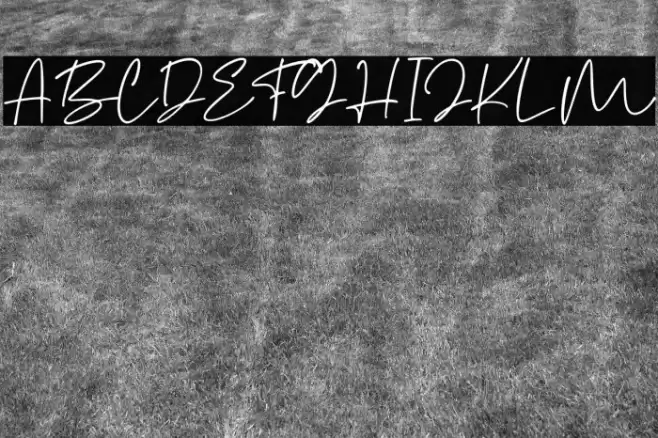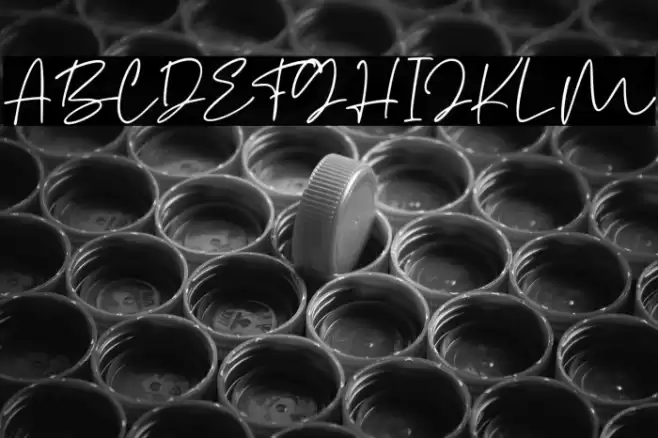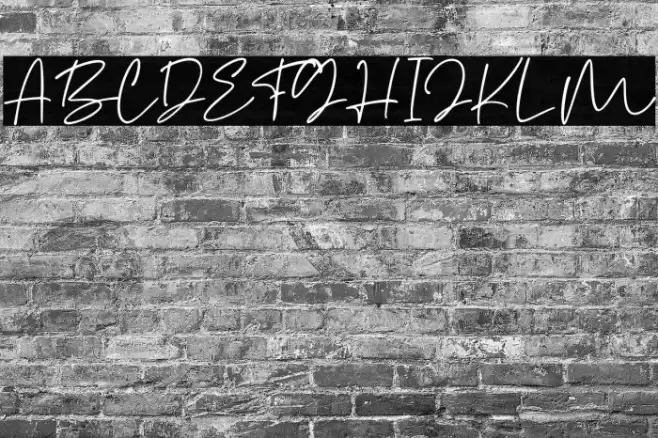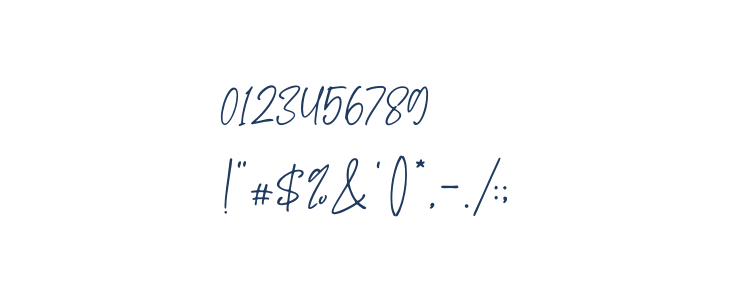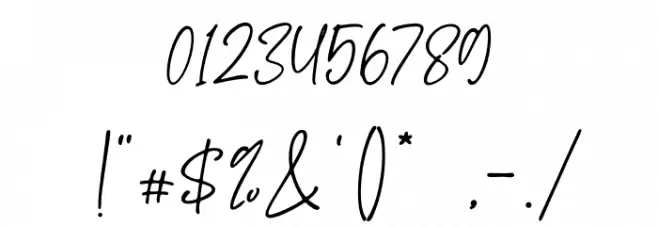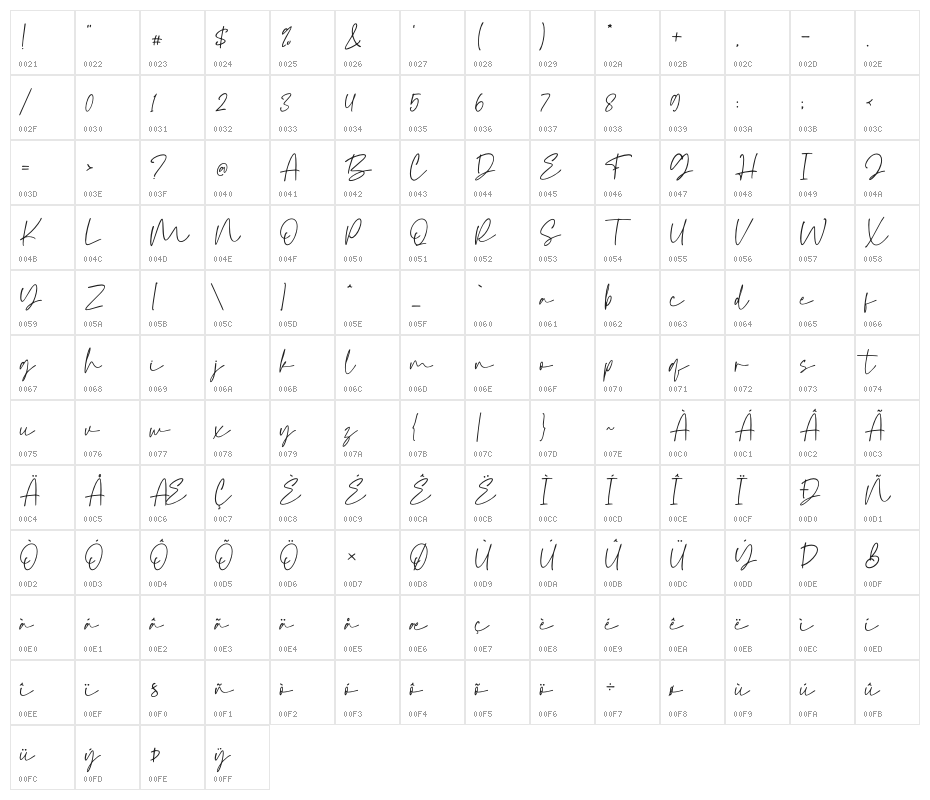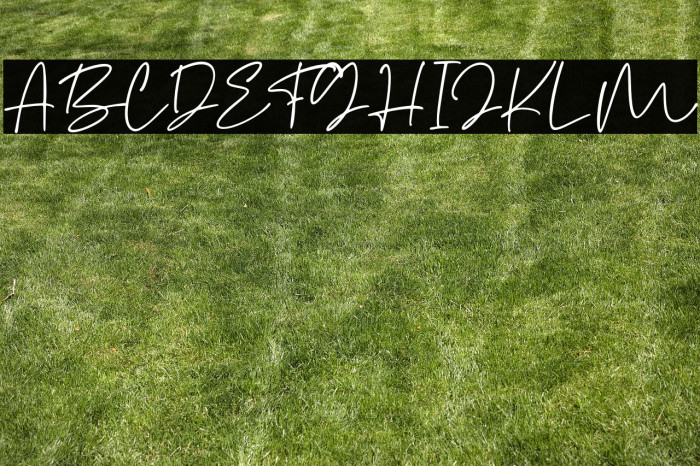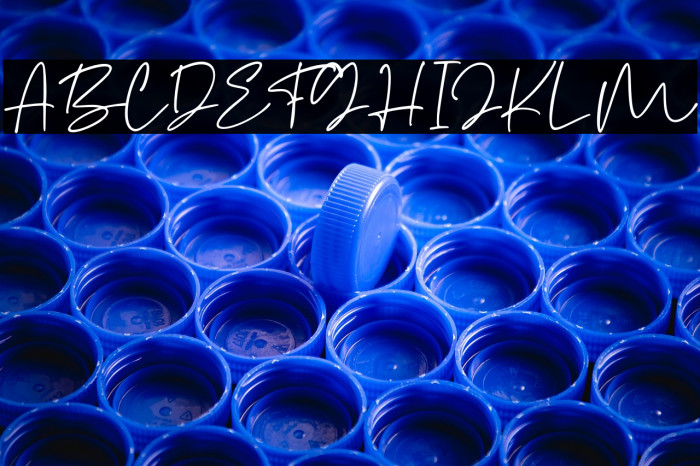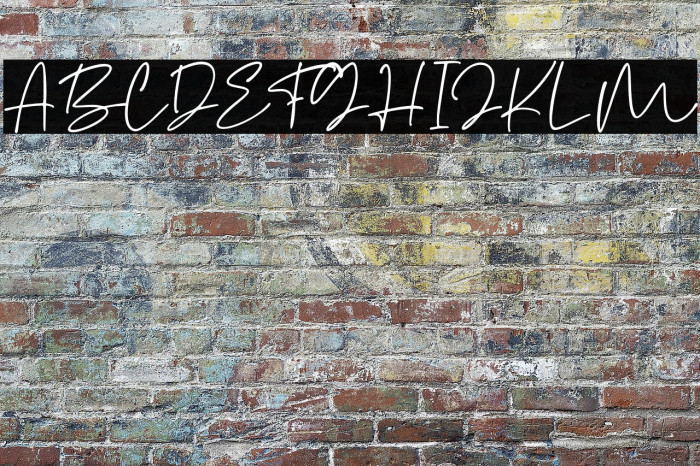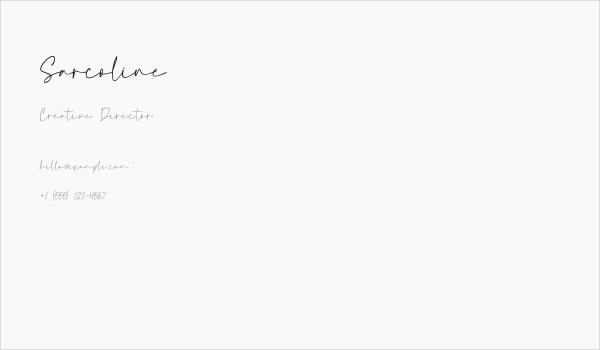
Sarcoline Font
Sarcoline Description
This font features a flowing, cursive style that mimics natural handwriting. Its letters are connected with smooth, elegant strokes, creating a sense of fluidity and grace. The uppercase letters are slightly larger and more pronounced, while the lowercase letters maintain a consistent, harmonious flow. The numerals and special characters are designed to match the cursive aesthetic, ensuring a cohesive look across all text. This font exudes a personal, artistic touch, making it ideal for projects that require a handwritten feel.
A flowing, cursive font with a natural, handwritten style from Uncategorized fonts.
- Overall Style: Handwritten
Sarcoline UPPERCASE
Sarcoline LOWERCASE
Sarcoline OTHER CHARS